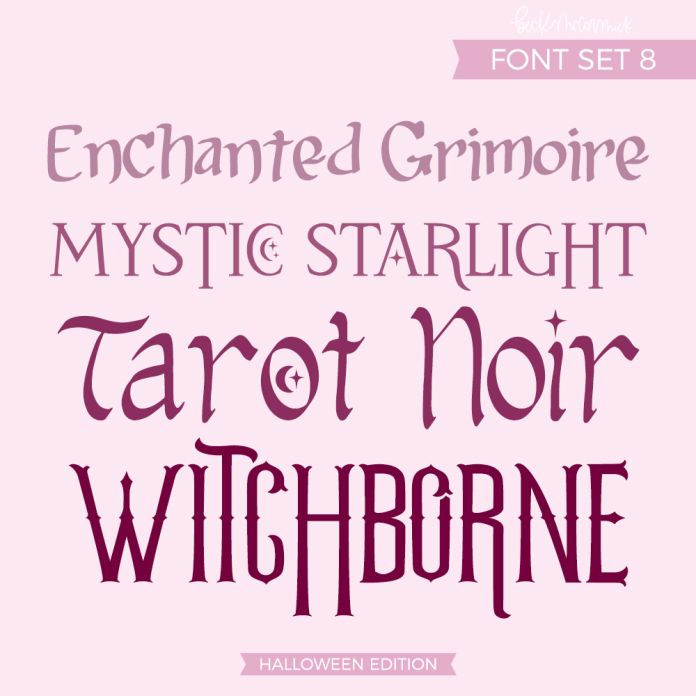
This set of 4 Halloween-themed fonts is versatile for all of your spooky design needs.
This set includes:
Enchanted Grimoire Display
Mystic Starlight Serif
Tarot Noir Display
Witchborne Serif